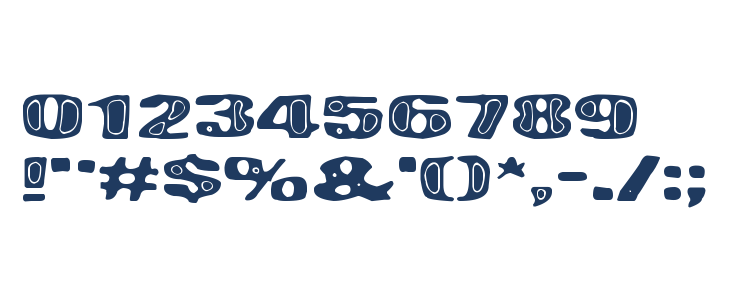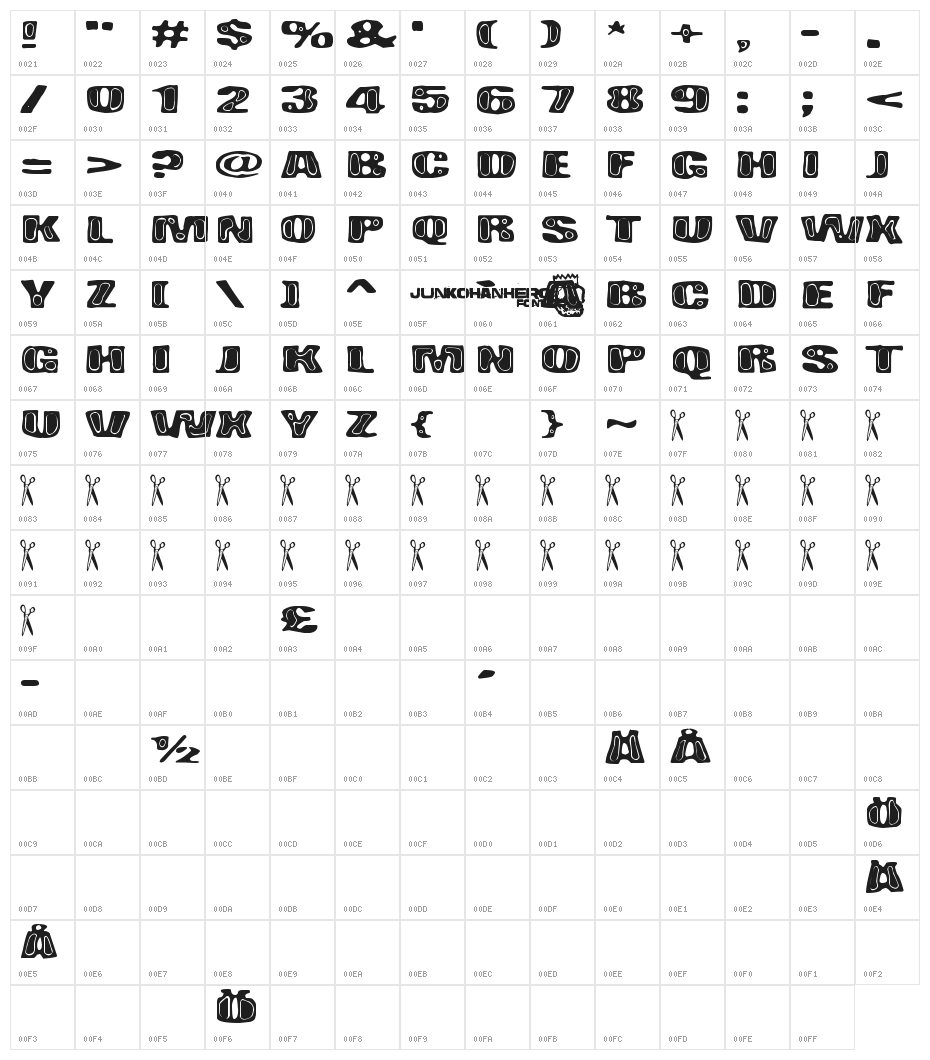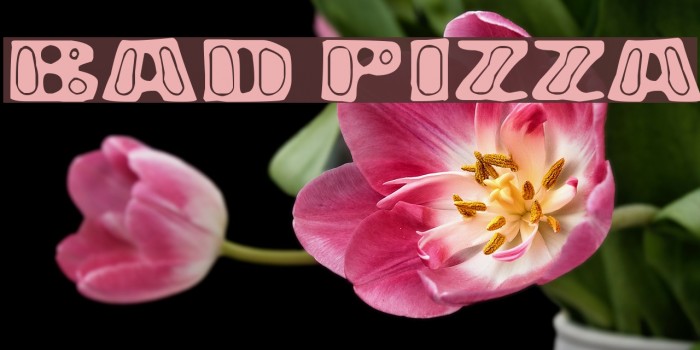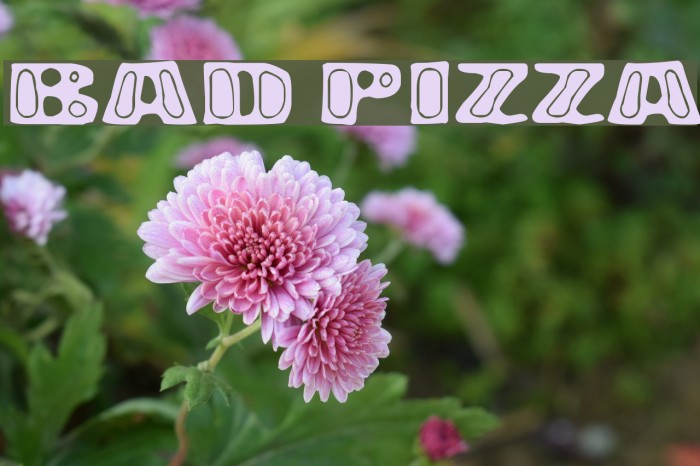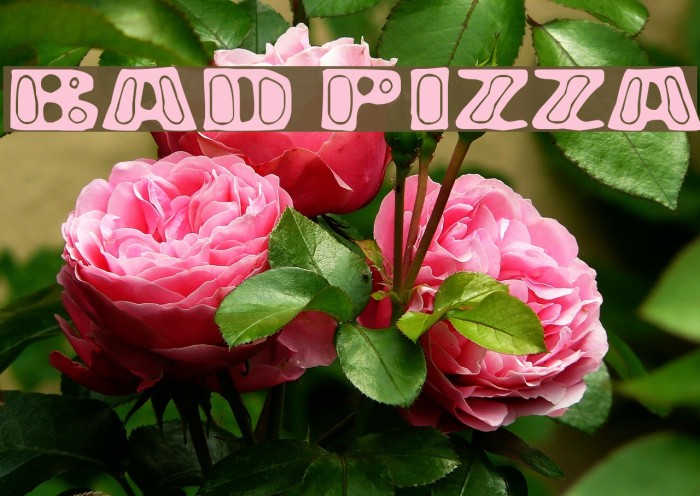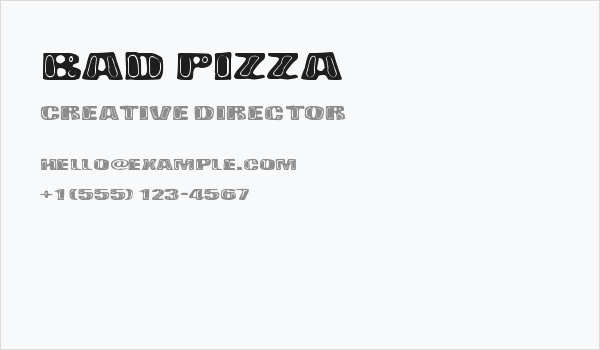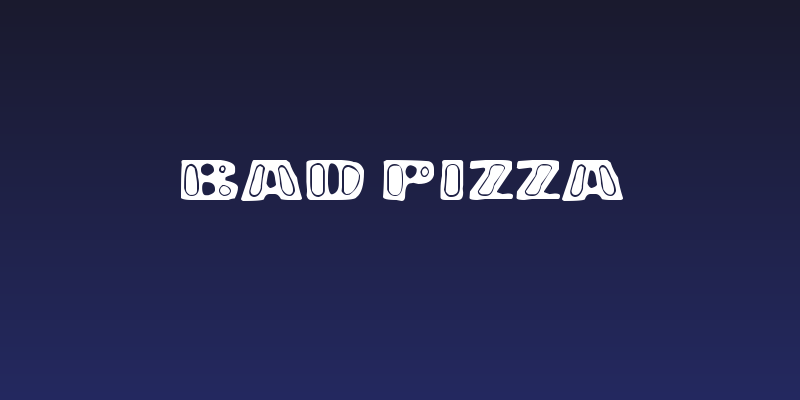
Bad Pizza Font
Bad Pizza Description
This font features a playful and bold design with a unique, quirky style. Each character is filled with irregular, organic shapes that resemble melted cheese or dough, giving it a fun and whimsical appearance. The letters are thick and chunky, with a high contrast between the filled and empty spaces, creating a visually striking effect. The overall look is reminiscent of a cartoonish or comic style, making it ideal for projects that require a lighthearted and informal touch. The font's distinctiveness lies in its ability to convey a sense of fun and creativity, making it suitable for a variety of playful applications.
| Proposed Projects | Ideal for children's books, comic strips, playful branding, and party invitations. |